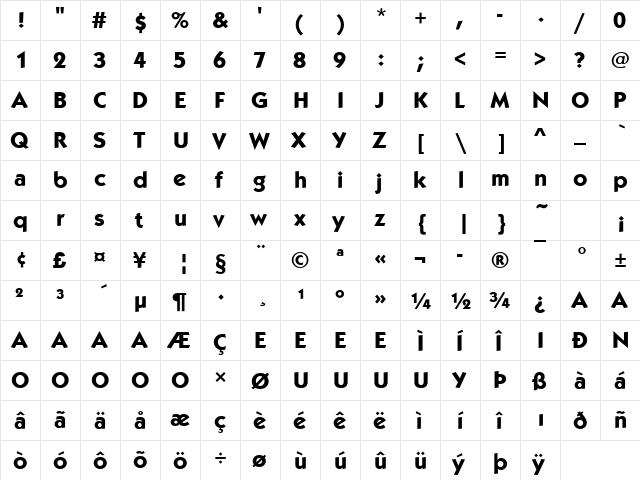
Kabel ITC T Bold
Design Context for Kabel ITC T Typeface
Kabel ITC T takes a measured approach to typography — its balanced proportions and neutral character make it a reliable workhorse for both digital and print work. The heavy weight commands attention and anchors typographic hierarchies.